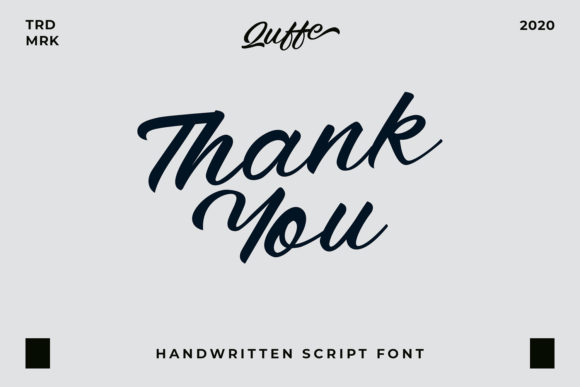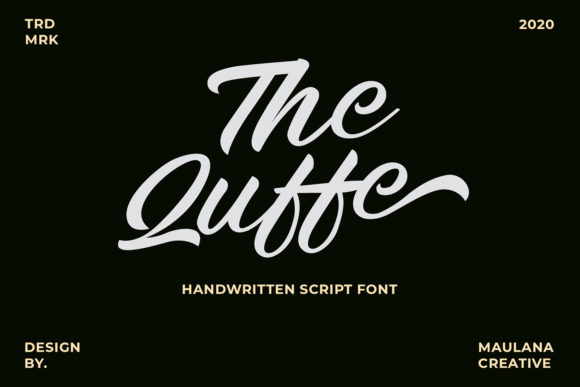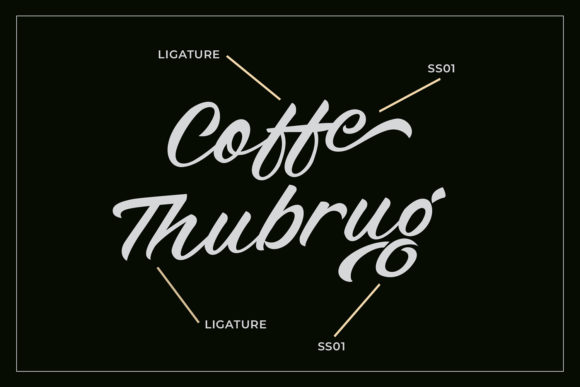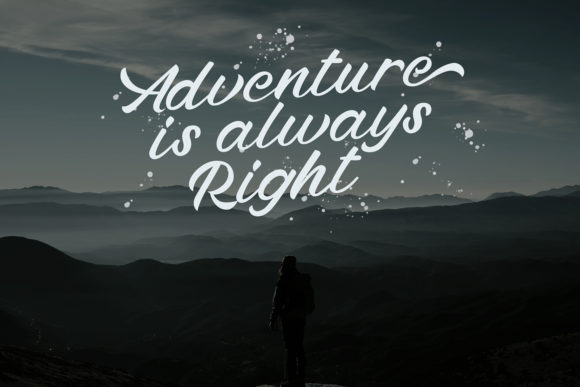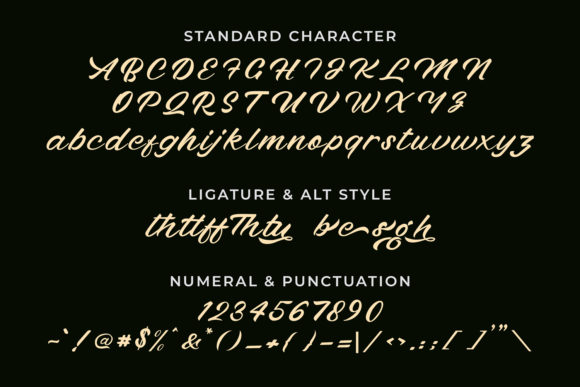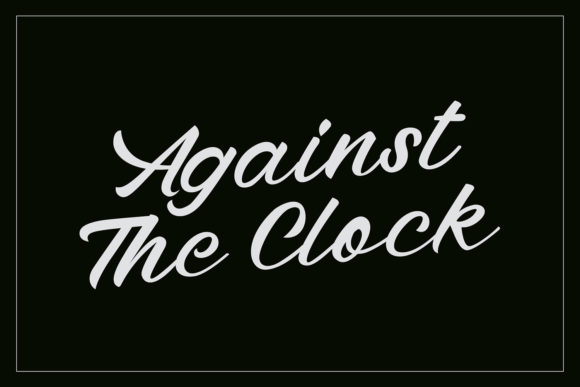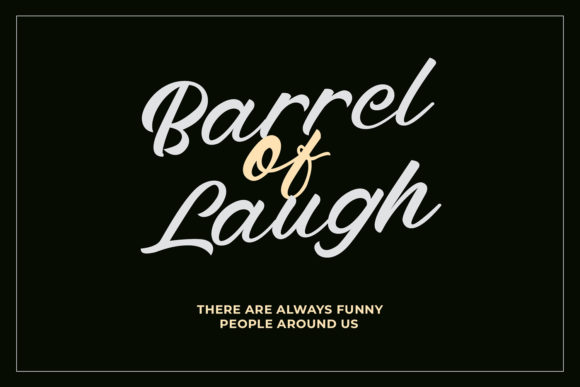
Quffe Font
About Quffe Font
Quffe is a beautiful and flowing handwritten font. Classical and stylish, this font will make each of your favorite creations look magnificent.